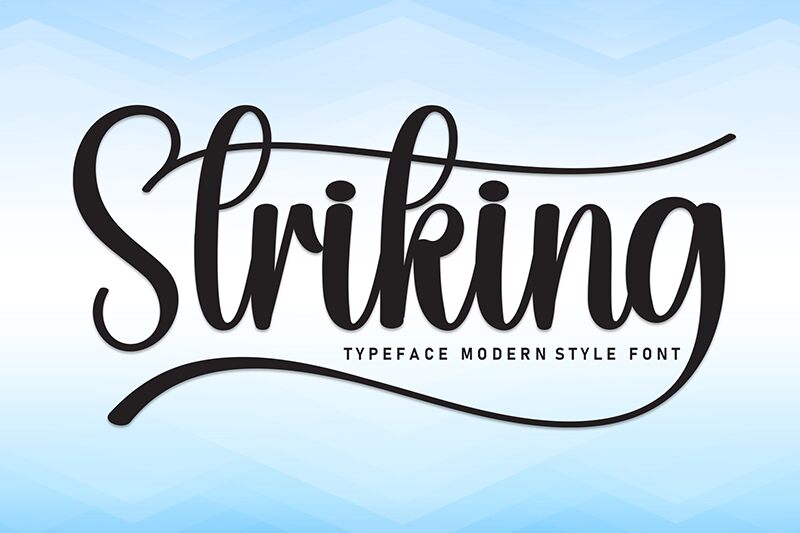
Striking
Striking font by Andi Moz thrives on elegance that attracts attention in the blink of an eye. The free handwritten font, a modern script, combines decorative flair and artistic touches to form the perfect fluid letter set. Its subtle elements reflect sophistication to ideally contribute through graphics, digital or printed.
Use Striking for logo designs and branding projects for stylish businesses. Otherwise, integrate it within titles for magazines, book covers or posters similarly transforming striking invitations or cards for events into timeless communication memorabilia that guests will keep forever.